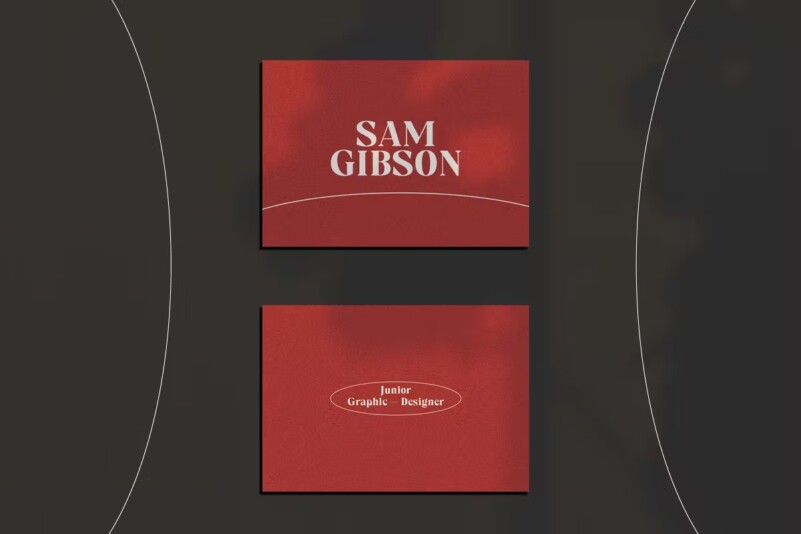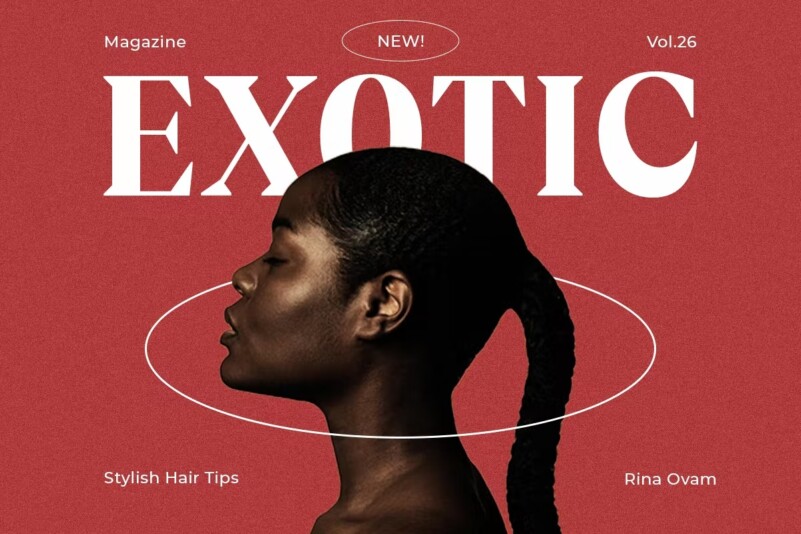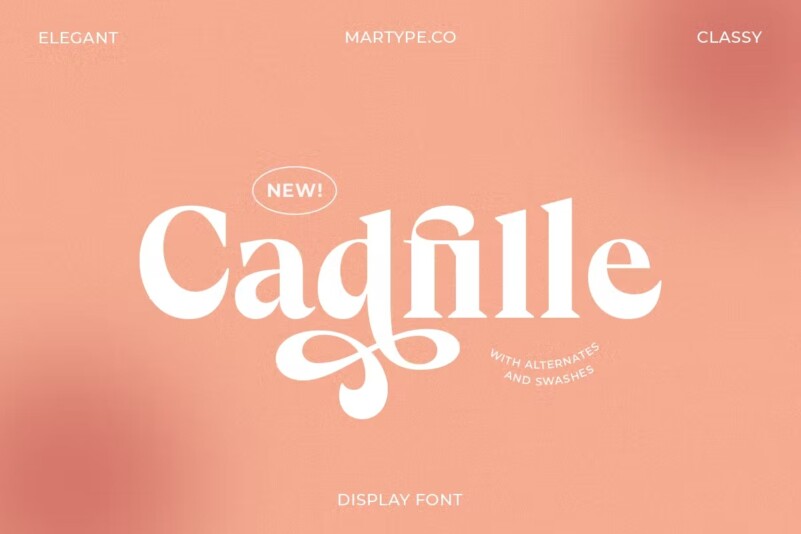
Cadfille – Serif Display Font
Cadfille is a bold and modern serif with a swash and alternate to make your font adorable and delightful also suitable for poster, display, headline and logotype projects.